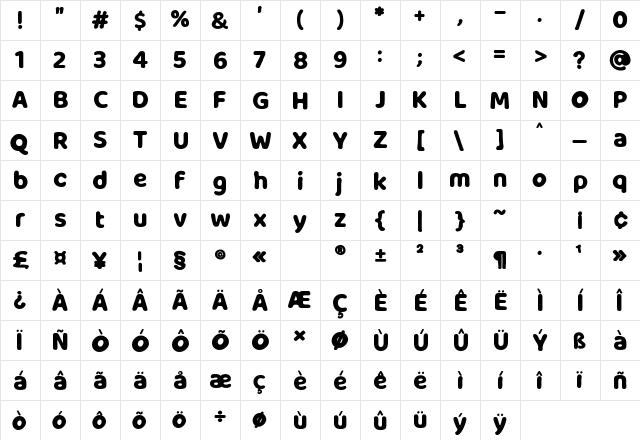
Milky Nice Clean Regular Font Preview
Milky Nice Clean Regular
Milky Nice Clean Regular Font Details
Design Context for Milky Nice Clean Typeface
Milky Nice Clean offers clean, dependable letterforms without strong stylistic allegiance, making it a practical choice for designers who need flexibility.
Pro Tip: Use Milky Nice Clean in both headline and body roles to test its range before committing to a single application.